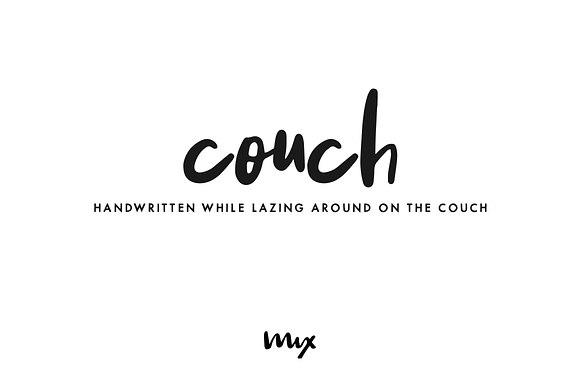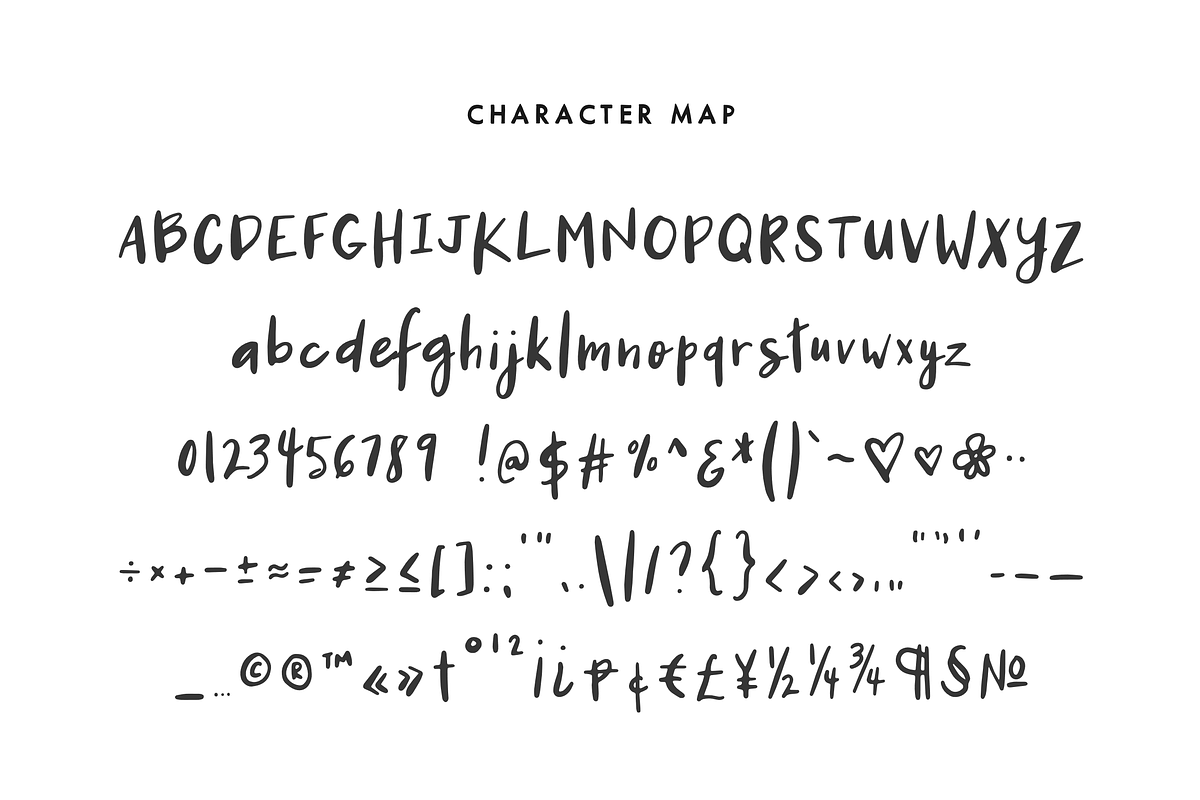
Couch — a Handwritten Font
MIX COUCH is a handwritten semi-script, made while lazing around on the couch.
Couch — a Handwritten Font by Mix Fonts fits naturally into Branding, posters, packaging, typography.